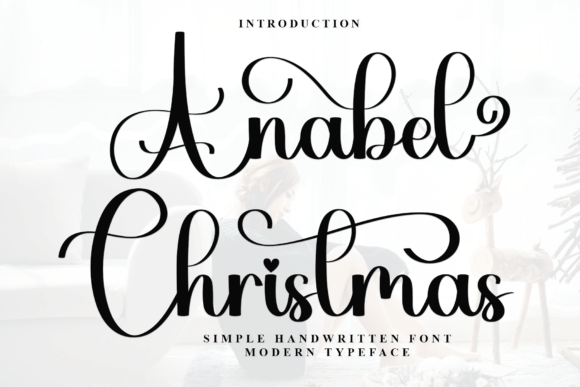
Introduction to Anabel Christmas Font
Anabel Christmas is a lovely and timeless handwritten font.
Why Choose Anabel Christmas Font?
Anabel Christmas Font offers exceptional quality and versatility, making it a valuable addition to your design toolkit. Whether you’re creating for personal projects or commercial use, Anabel Christmas Font delivers professional results.